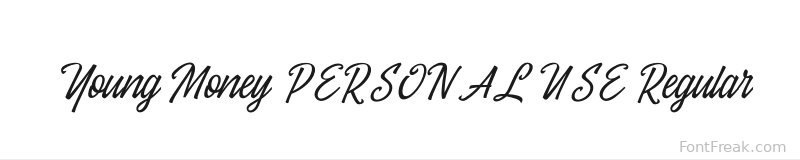
Young Money PERSONAL USE Regular
Young Money PERSONAL USE Regular by Mans Greback is a captivating script font that exudes elegance and flair. This font features a fluid, cursive design characterized by its graceful curves and dynamic strokes. The stroke weight is moderately varied, providing a sense of sophistication without compromising readability. The spacing is well-balanced, allowing for seamless connections between letters while maintaining clarity. Decorative elements, such as stylish loops and swashes, enhance the overall aesthetic, making it ideal for projects that require a touch of creativity.
This font is particularly well-suited for a range of applications, including wedding invitations that call for a romantic and personalized touch, movie posters where an artistic flair is needed to capture attention, and restaurant menus that aim to convey a unique dining experience. Additionally, it works beautifully for greeting cards, allowing for heartfelt messages to be expressed in a visually appealing manner. The target audience for this font includes graphic designers looking to elevate their projects, small business owners wanting to create memorable branding, and content creators in search of distinctive typography to enhance their online presence.
What sets the Young Money PERSONAL USE Regular font apart is its ability to blend contemporary style with classic elegance. It offers a unique charm that can transform ordinary text into an eye-catching centerpiece. This font's versatility across various design avenues makes it a valuable addition to any creative toolkit. With the Young Money PERSONAL USE Regular font free download, you can explore its potential and inject a fresh, stylish flair into your next project. Whether you're designing for personal or commercial use, this font promises to leave a lasting impression.